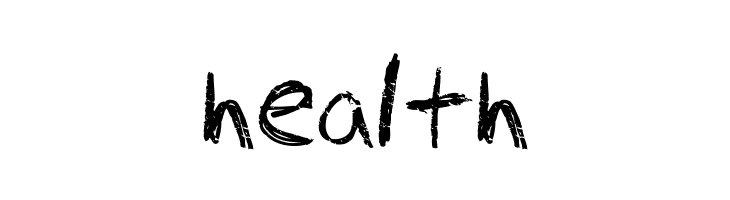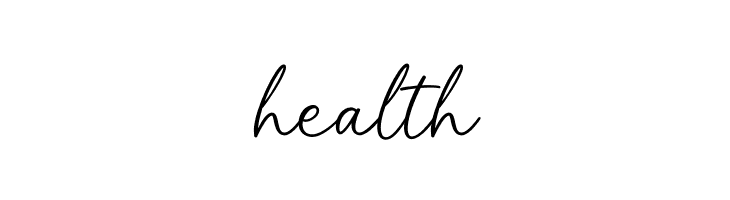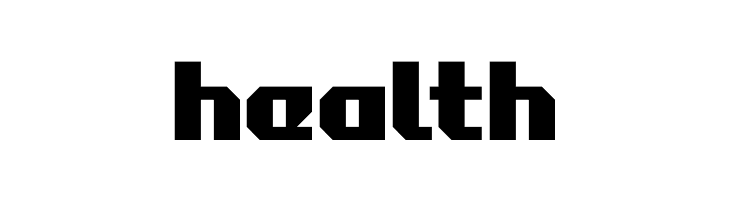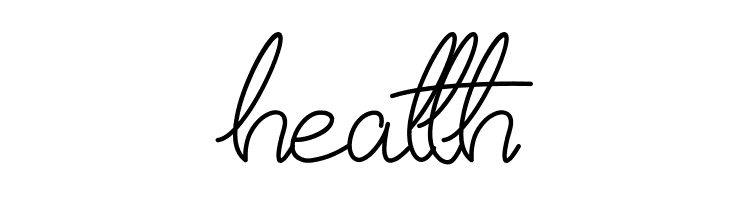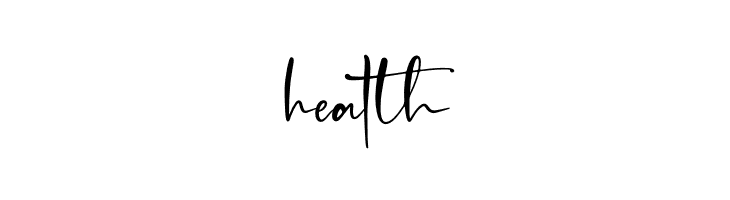
A dynamic and flowing script font with elegant, cursive letterforms.
A rugged, distressed font with a hand-drawn, artistic style.
A modern, cursive font with bold, expressive characters and elegant swashes.
A graceful, cursive script font with smooth, flowing lines.
A bold, angular font with sharp edges and a dynamic style.
A bold, geometric font with angular lines and a modern, digital aesthetic.
A flowing cursive font with elegant, interconnected characters.
A modern, elegant script font with flowing, cursive characters and intricate details.
A cursive, handwritten font with elegant loops and fluid connections.
A dynamic and elegant script font with fluid strokes and expressive characters.